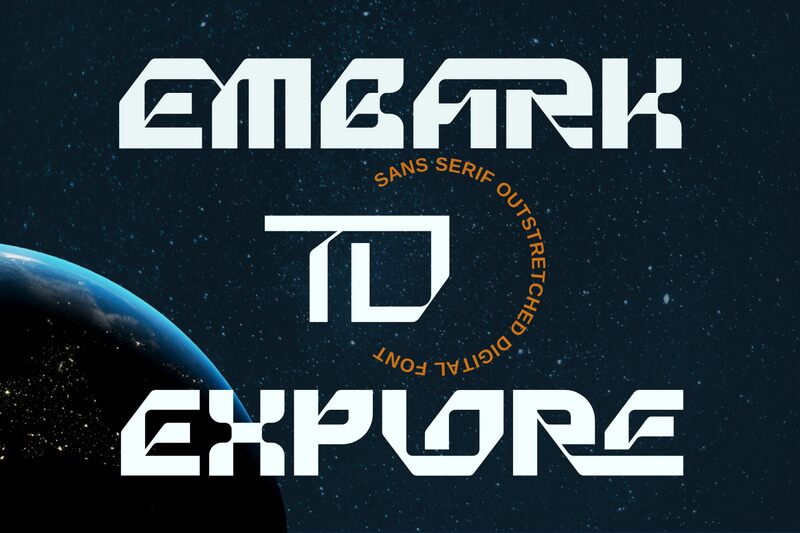
Embark To Explore font family by 177Studio comes in 2 font styles inspired by the space and sci-fi theme. The versatile typeface uses clean, geometrical letter shapes with thick lines mostly connected at sharp angles. The overall look speaks futurism, modernity, and technology. It is a perfect choice for various types of multimedia projects.
Fonts like Embark To Explore have so much to do with our fascination with the universe or love for a visionary science fiction piece. Movies, games, videos, installing, digital marketing, and advertising projects are all among the designs this font works perfectly well in. It also fits UI/UX design, branding, packaging, atypical book covers, logo design, and many more.